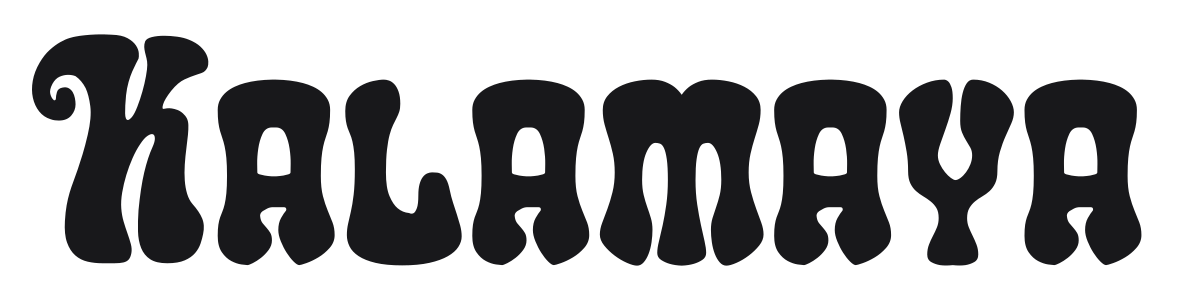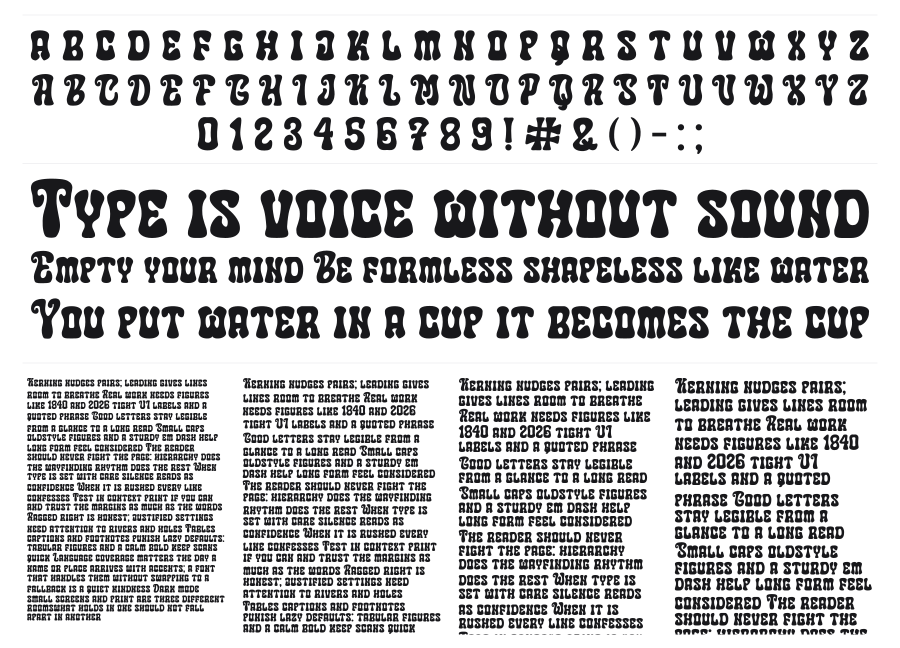
Kalamaya
Kalamaya is a heavy groovy display font rooted in the psychedelic lettering of the late 1960s and 70s. Characters balloon outward with thick, swelling strokes and deep notched cusps where stems meet, giving the design its characteristic funky energy. It works best large, on posters, album art, and retro-themed branding where you want something with attitude.